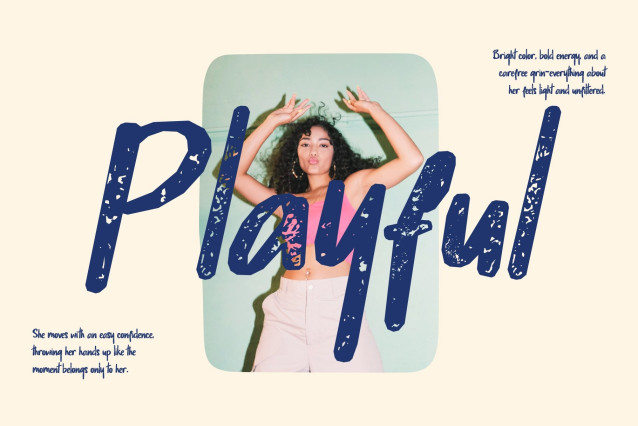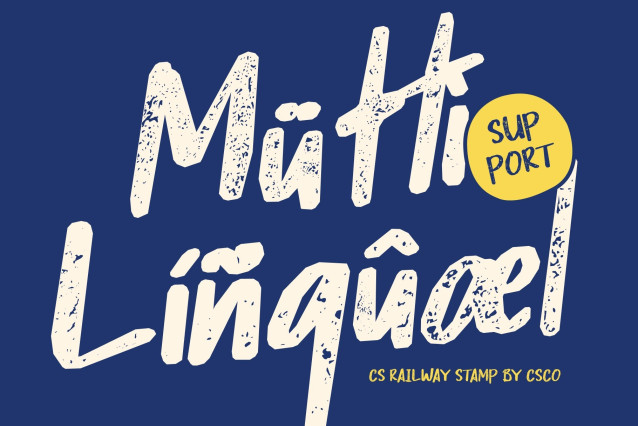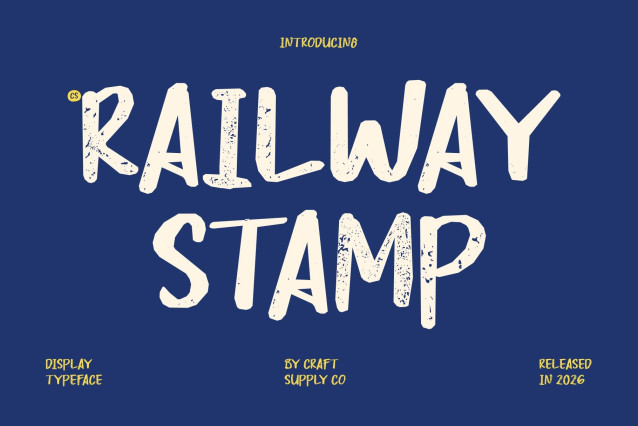
CS Railway Stamp – Marker Style Sans Serif Font: Where Handwritten Warmth Meets Vintage Stamp Texture
Authentic Handwritten Forms with Natural Energy
This is a marker-style sans serif font designed to capture the warmth, spontaneity, and expressive charm of natural handwriting. Its relaxed handwritten structure and smooth flowing strokes create a friendly and approachable appearance filled with personality and human touch. Every character feels lively and organic, making the font perfect for creative projects that seek authenticity and emotional connection.
Stamp Texture with Vintage Artistic Character
This font features rough and uneven detailing that adds vintage character and tactile visual depth. This textured effect creates an authentic worn appearance reminiscent of classic print techniques, handmade signage, and retro stamped graphics. The result is a design that feels timeless, artistic, and full of expressive charm.